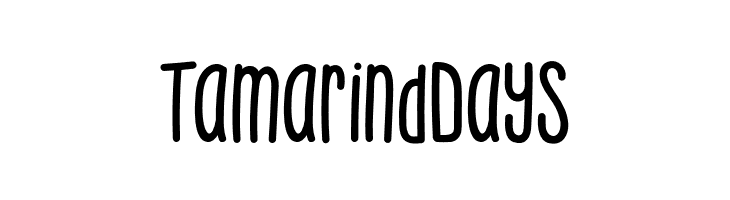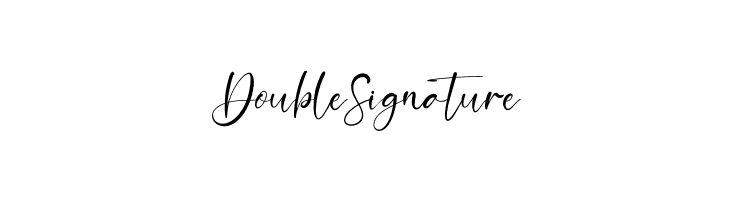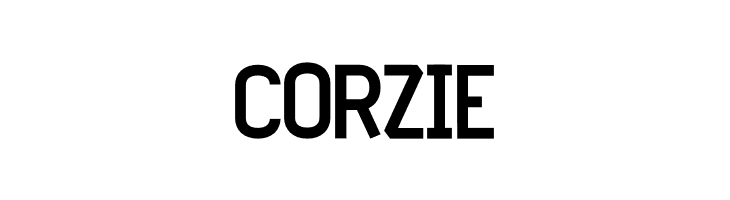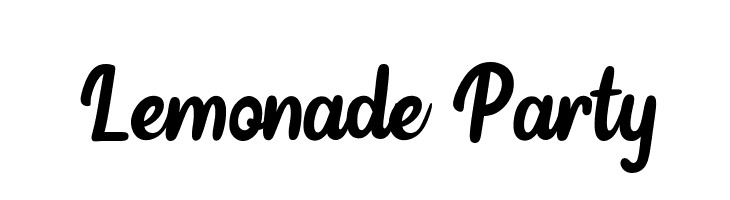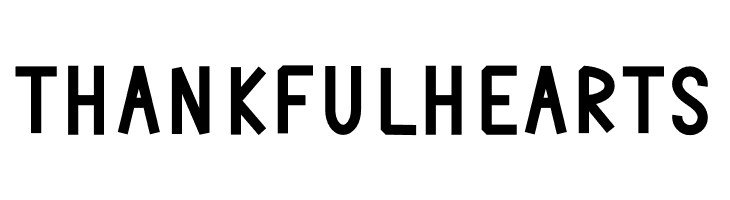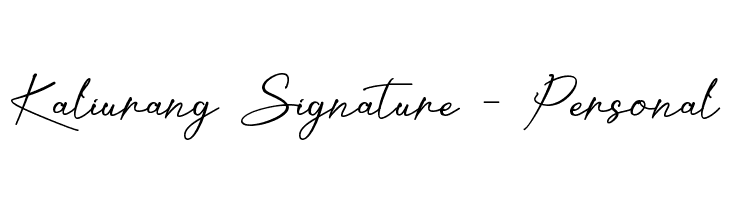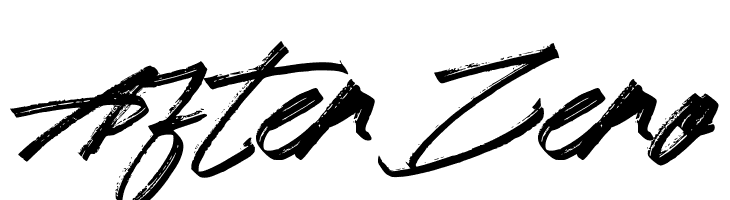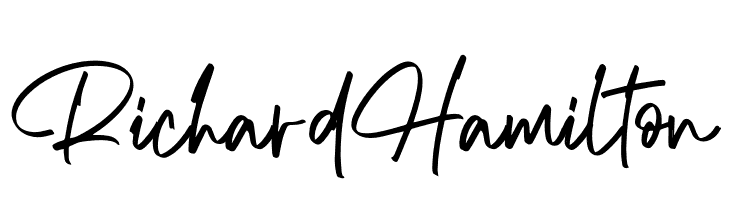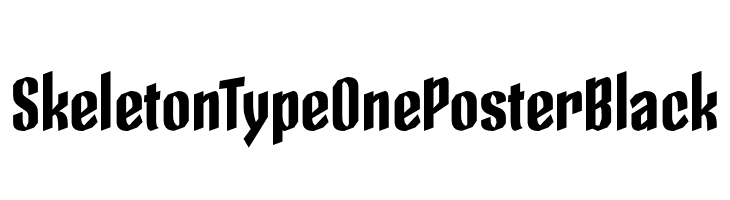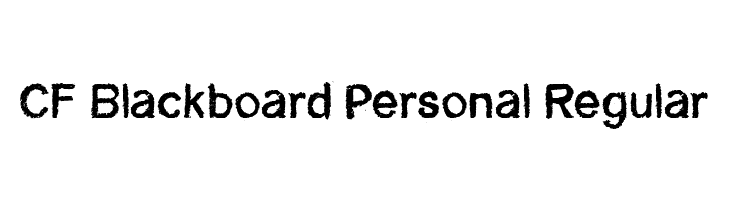
A playful, narrow font with rounded edges and consistent stroke thickness.
A graceful, cursive script font with elegant, flowing strokes.
A bold, modern sans-serif font with geometric structure and uniform width.
A playful, handwritten script font with smooth, connected characters.
A bold, playful font with a hand-drawn, modern style.
A modern, clean sans-serif font with geometric shapes and uniform stroke width.
A fluid and graceful script font with a handwritten signature style.
A dynamic, brush-style script font with a bold, handwritten appearance.
A dynamic, expressive handwritten font with a fluid, cursive style.
A bold, angular font with a modern, edgy style.